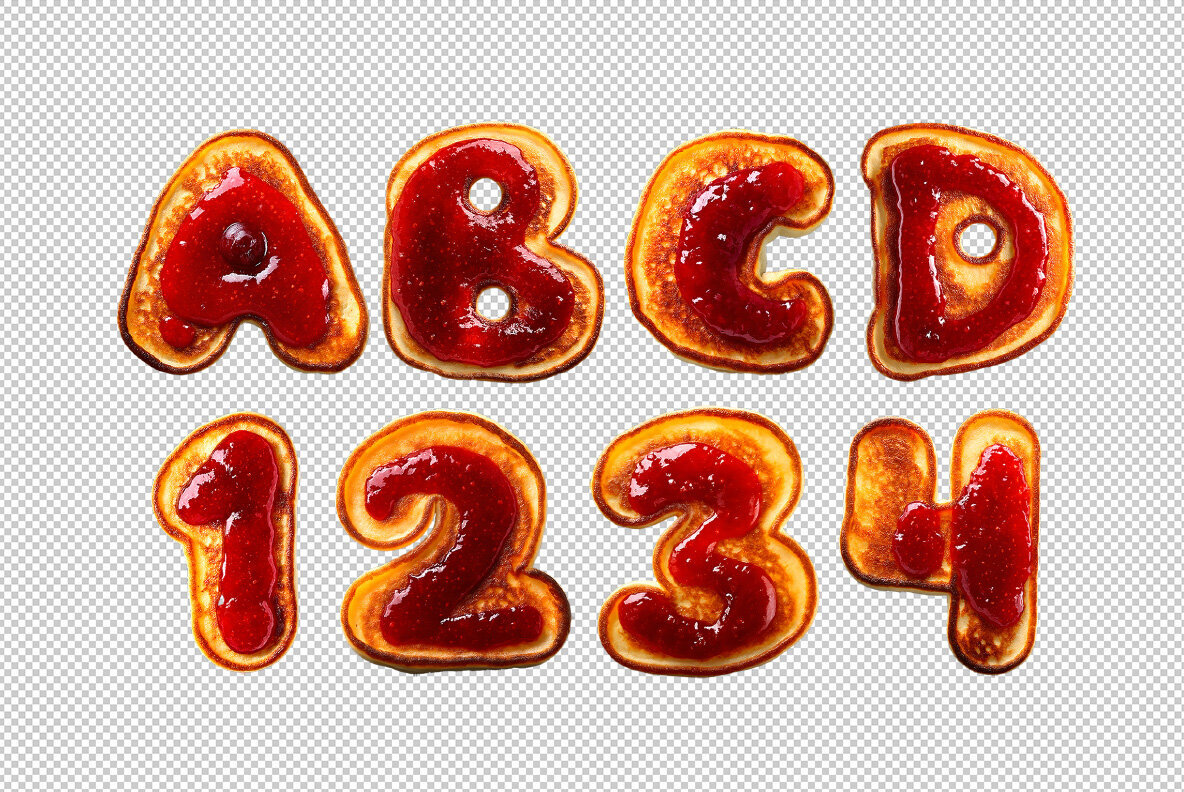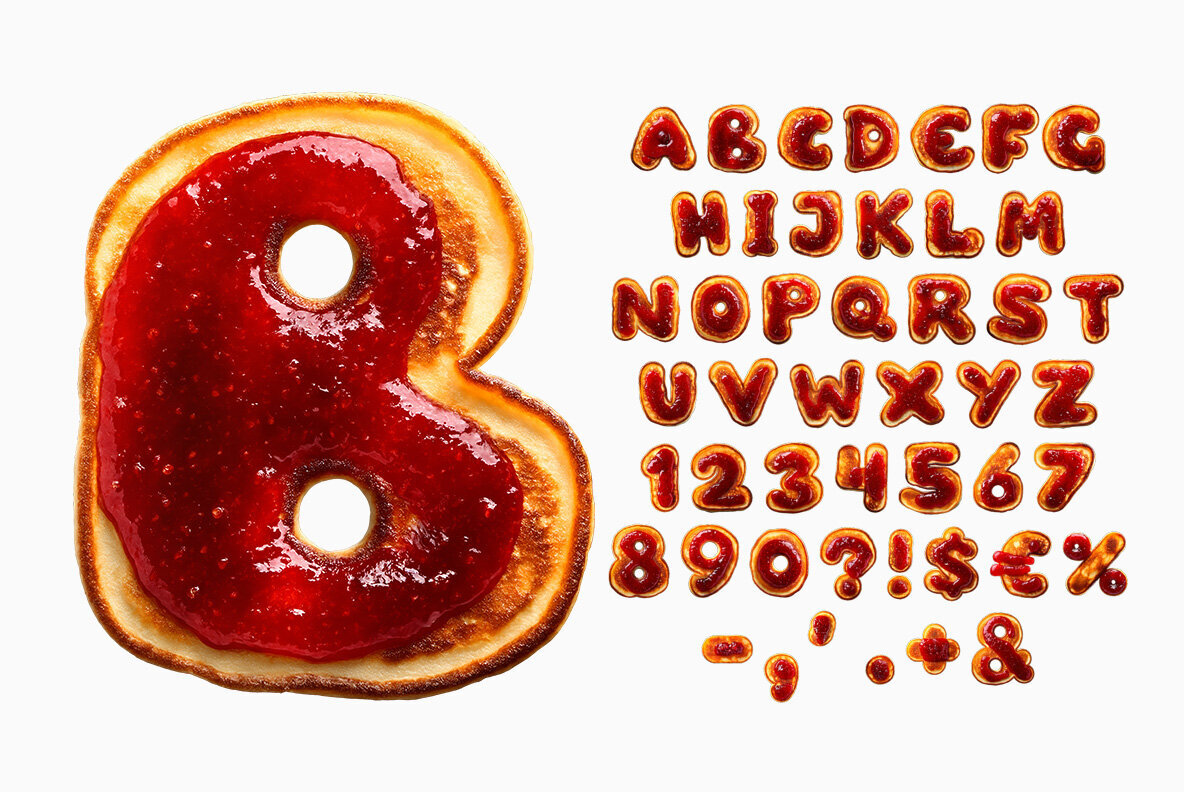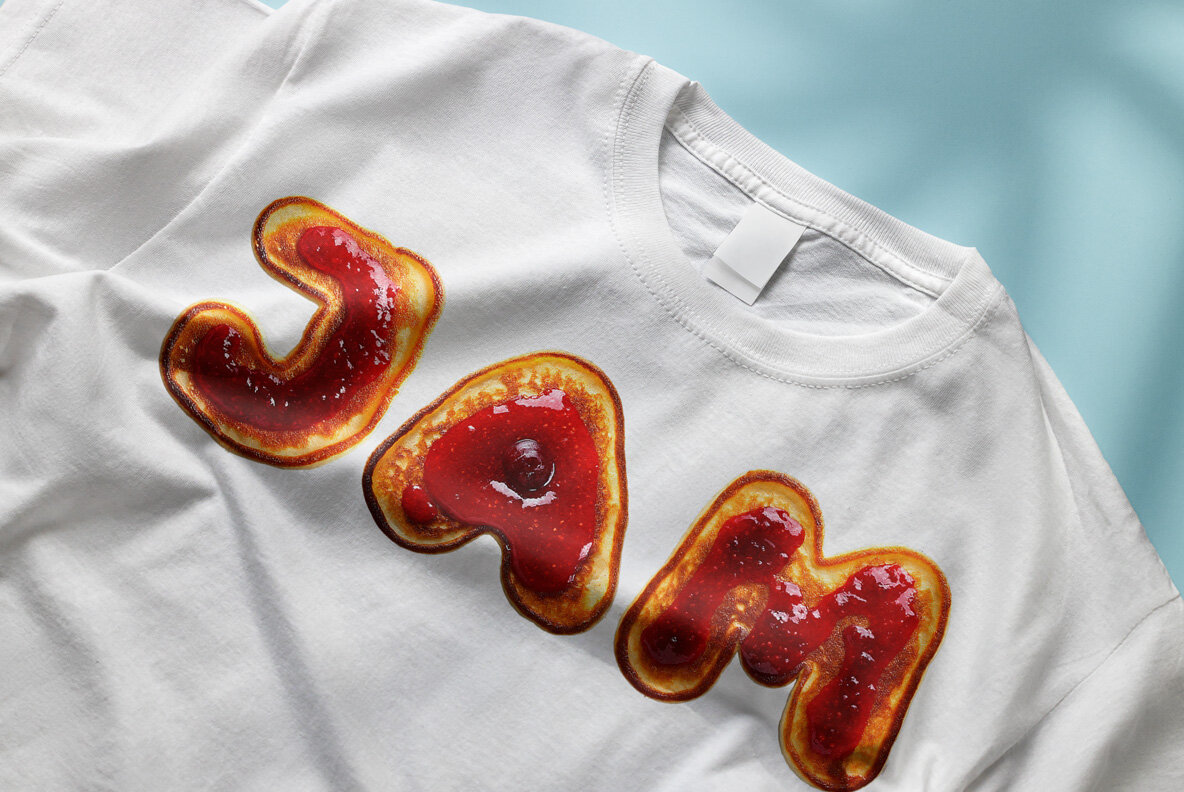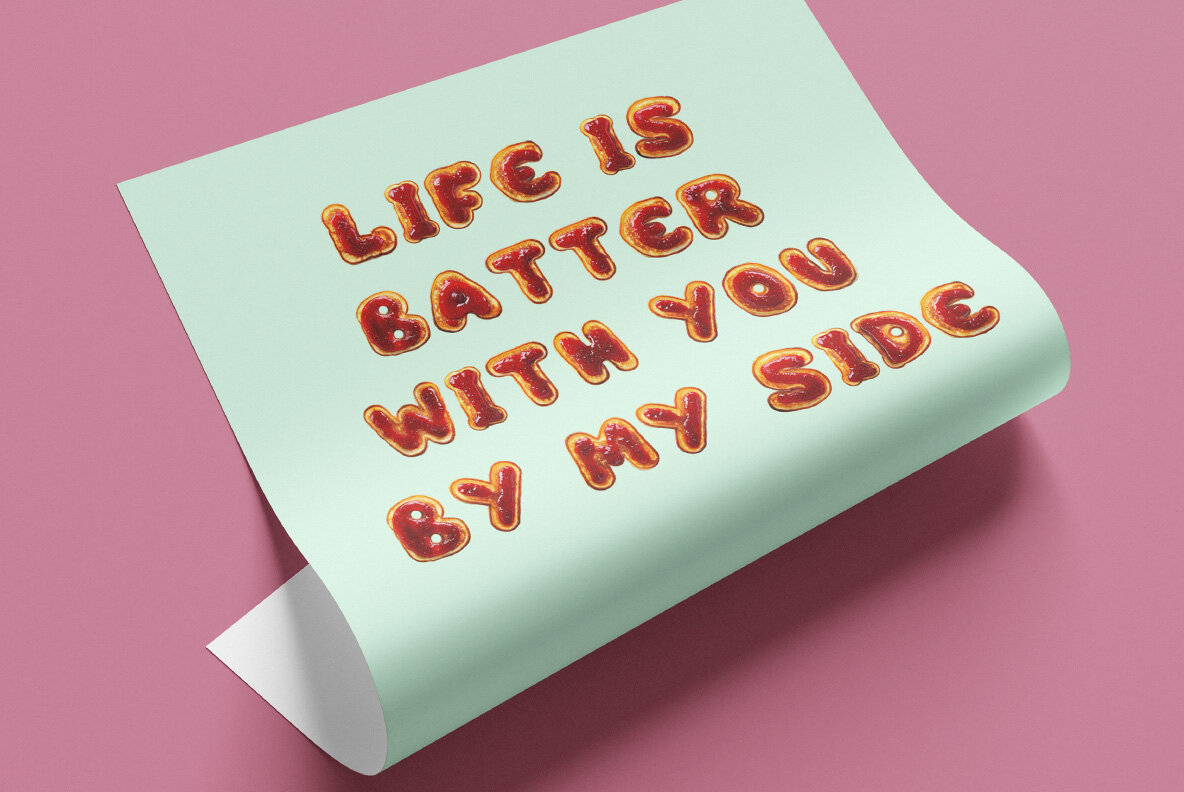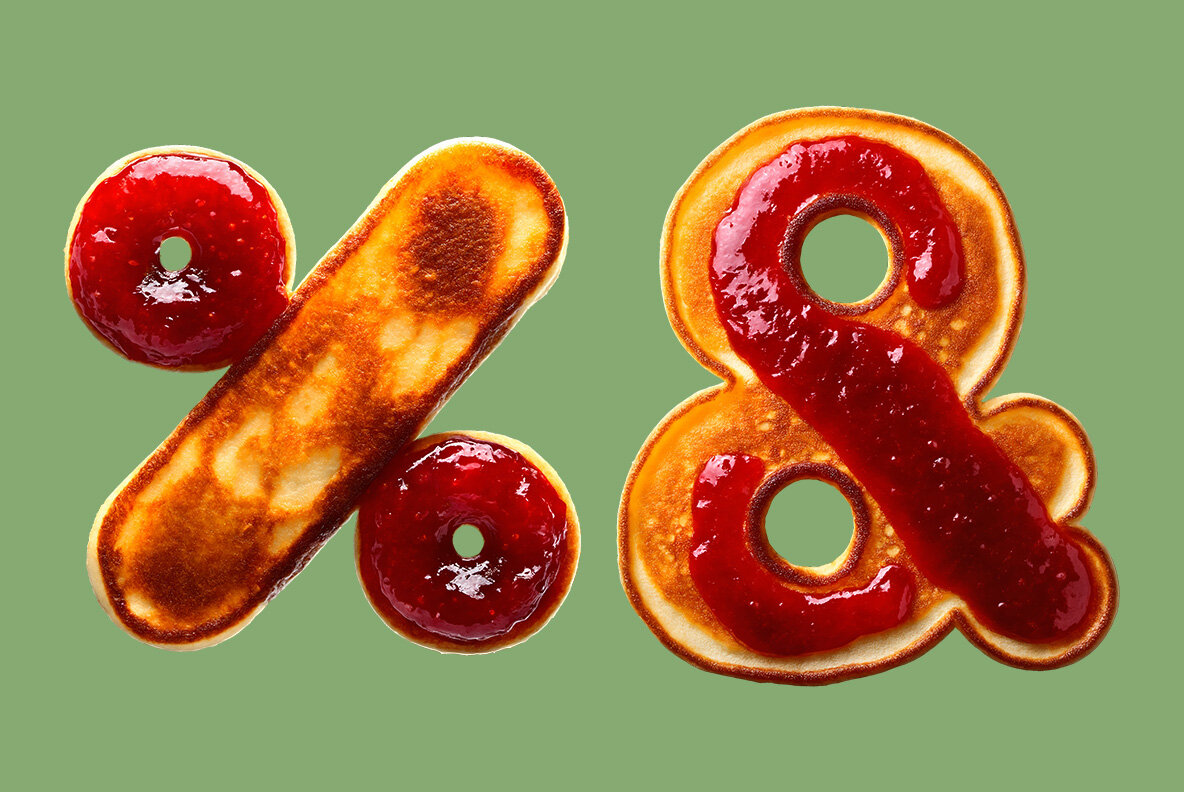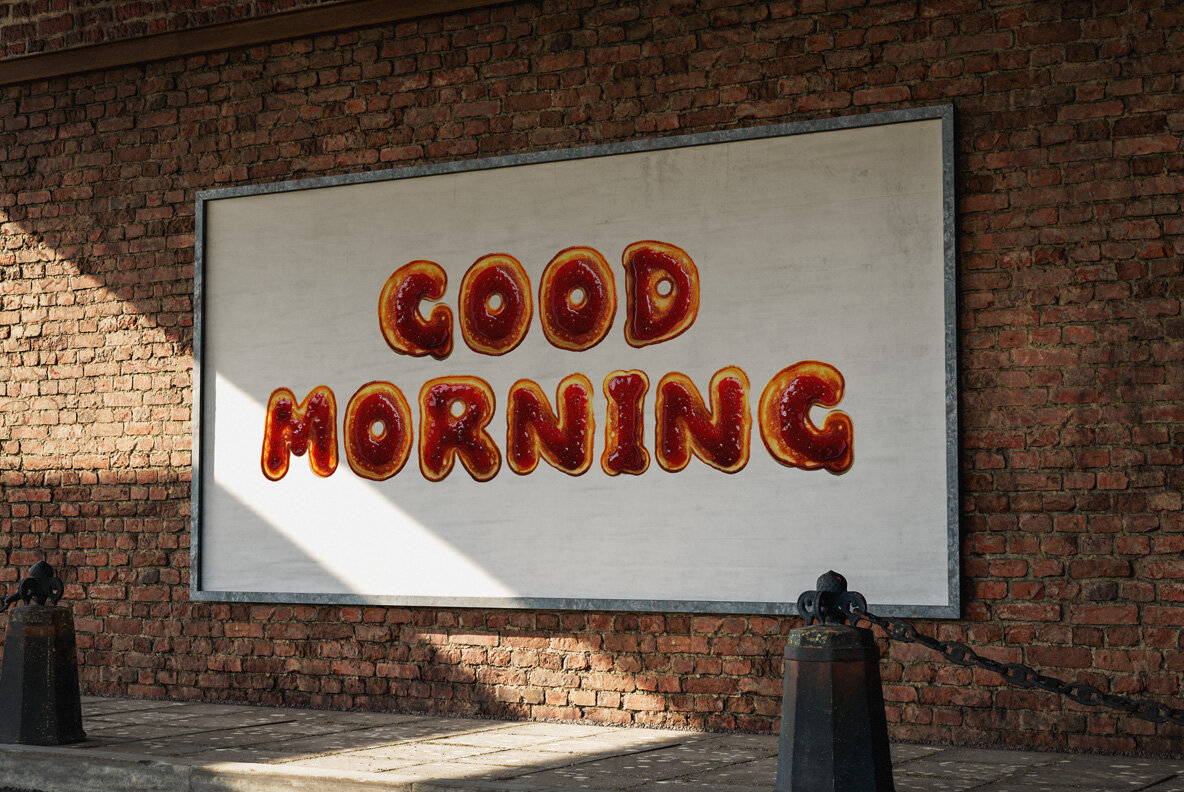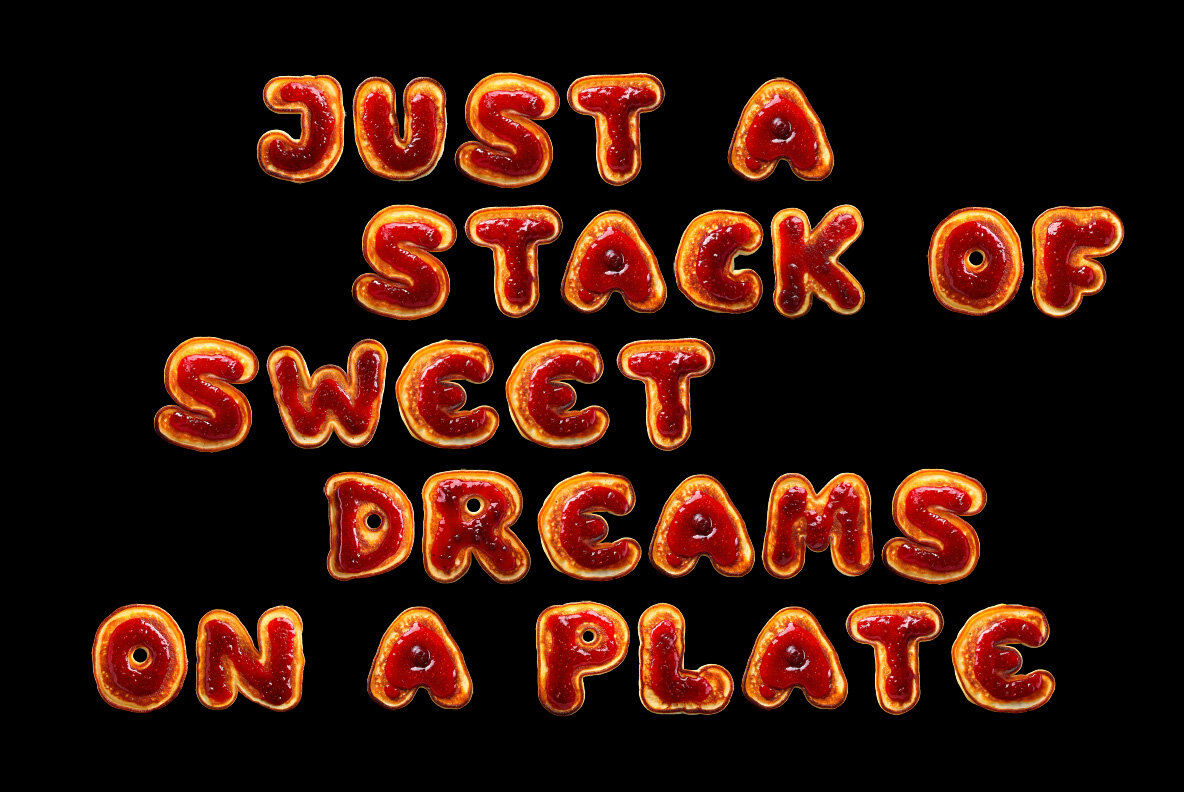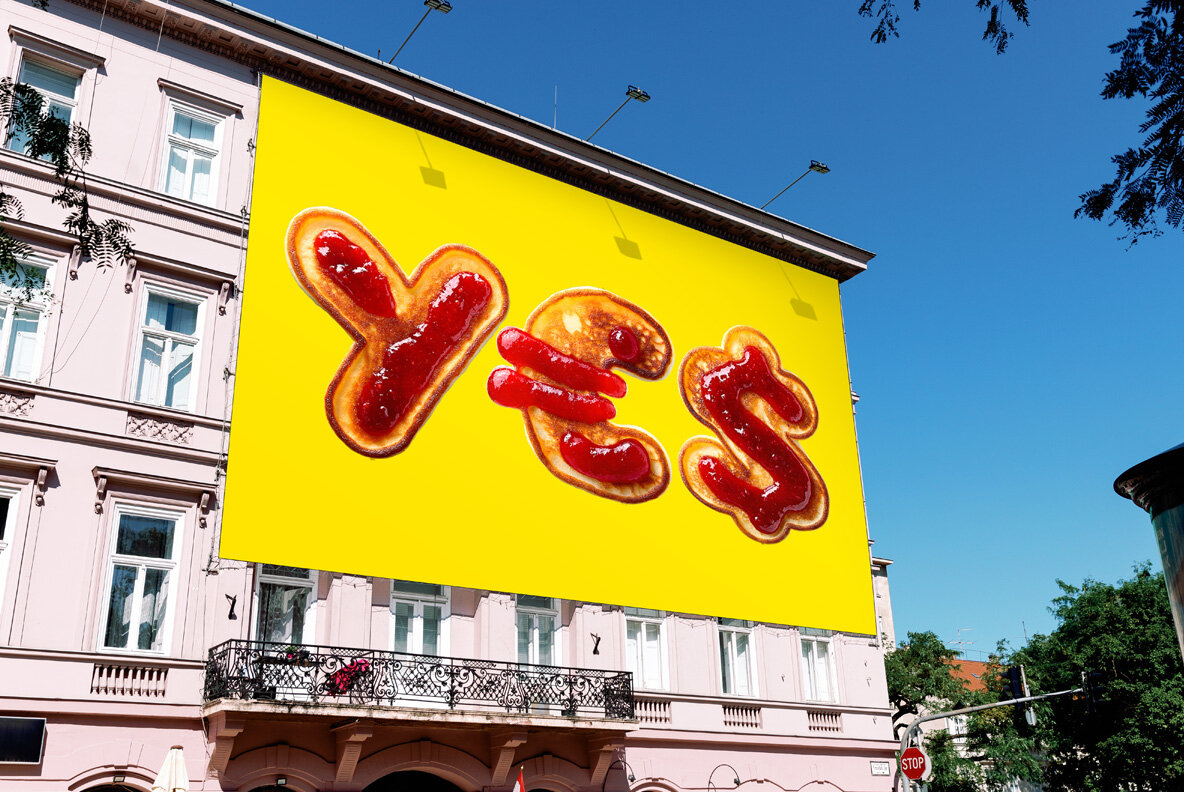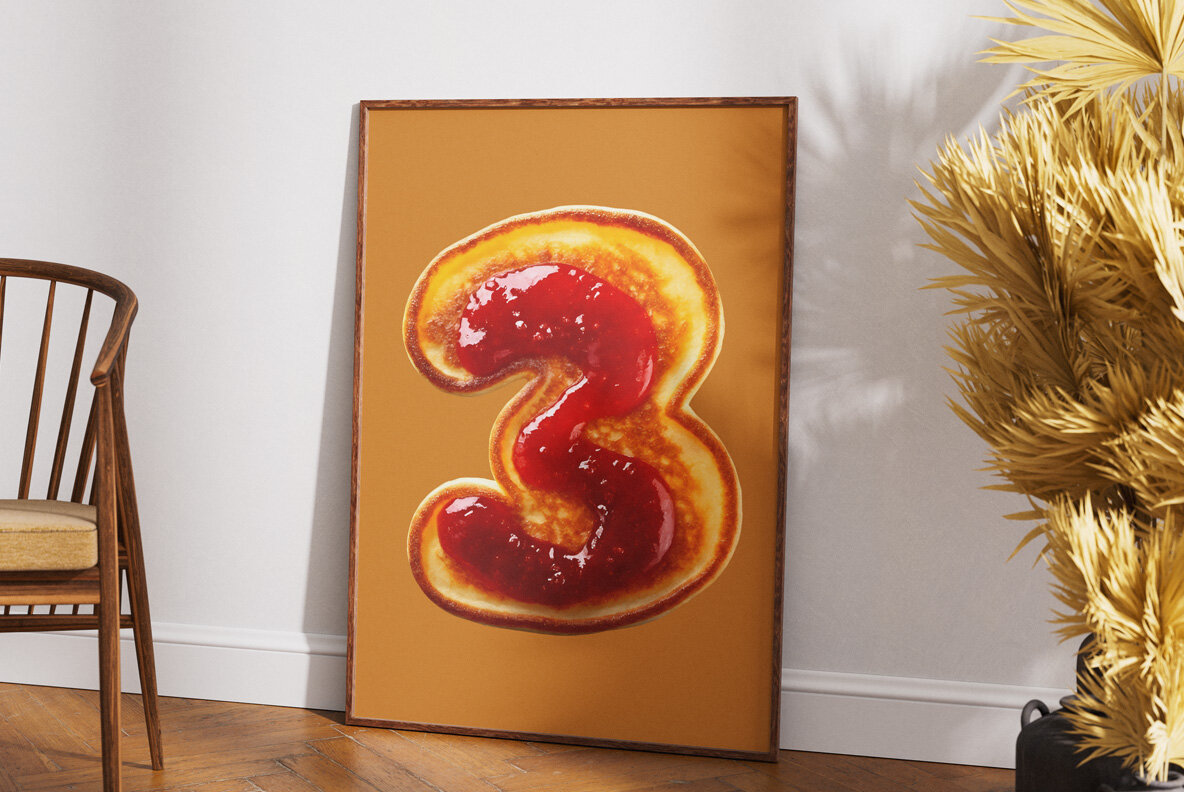
Bring a unique flavor to your designs with this charming typeface that captures the look of fluffy pancakes drizzled in vibrant jam. Ideal for morning-themed artworks, food-related projects, or playful visual elements, each character is designed to be as appealing as the real thing. Whether you're creating a breakfast menu, crafting blog visuals, or enhancing social media content, this font brings a warm, homemade aesthetic to your projects.